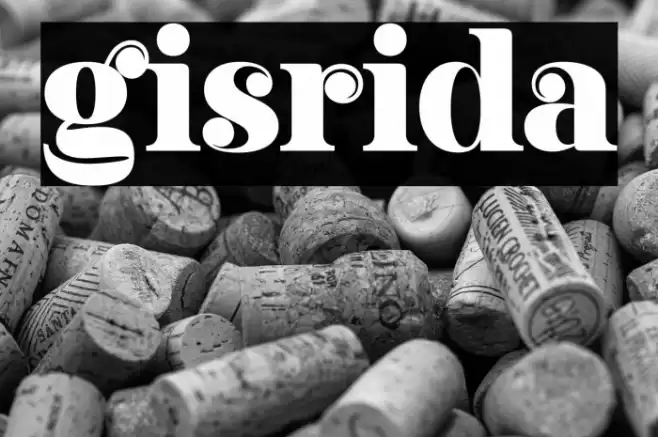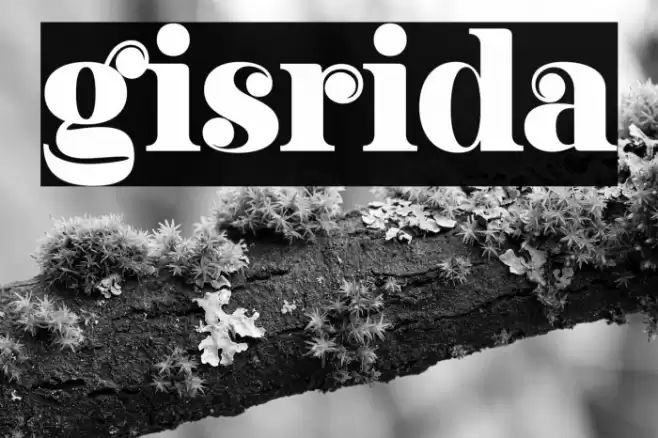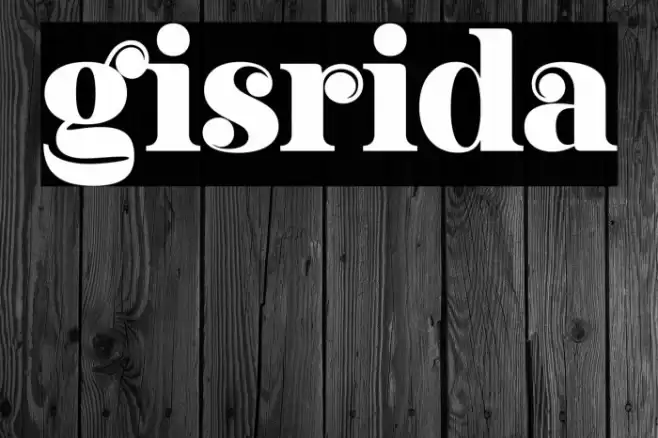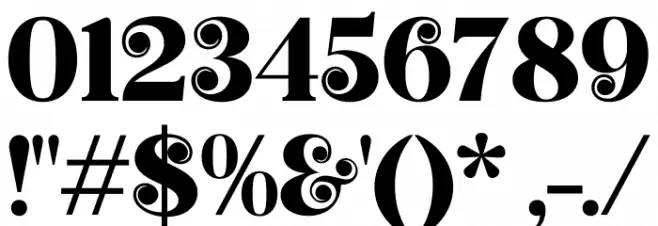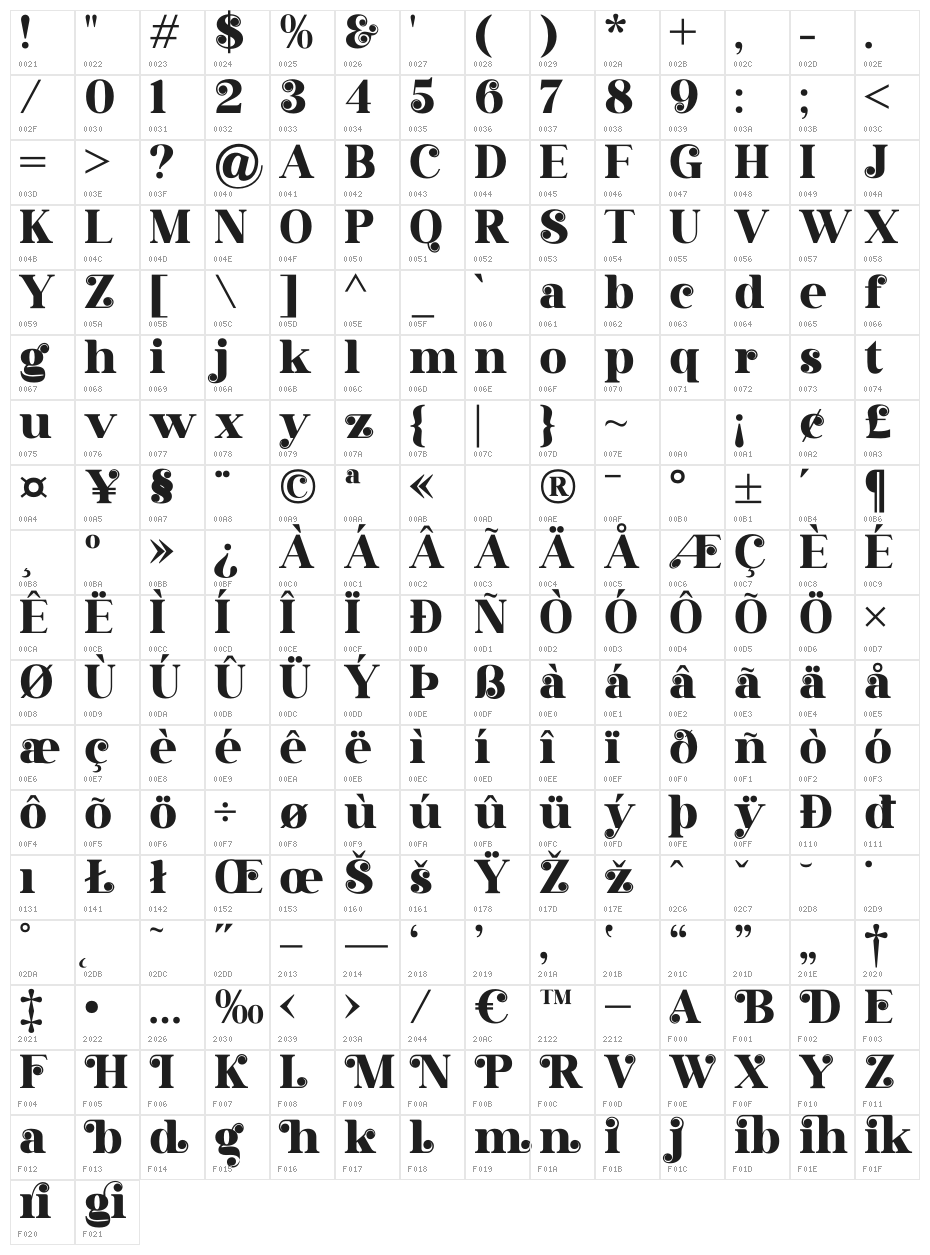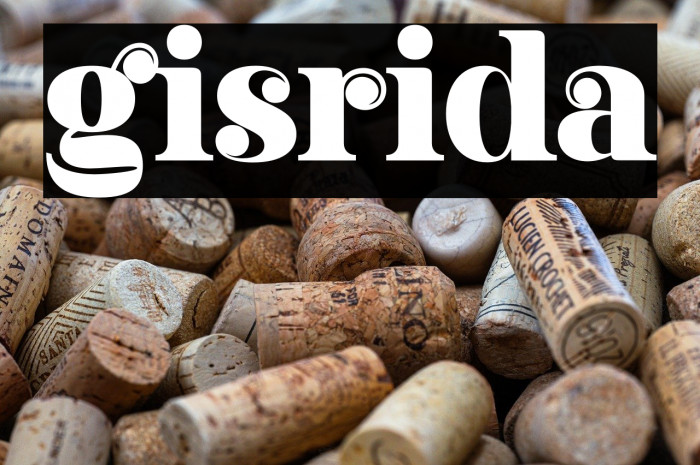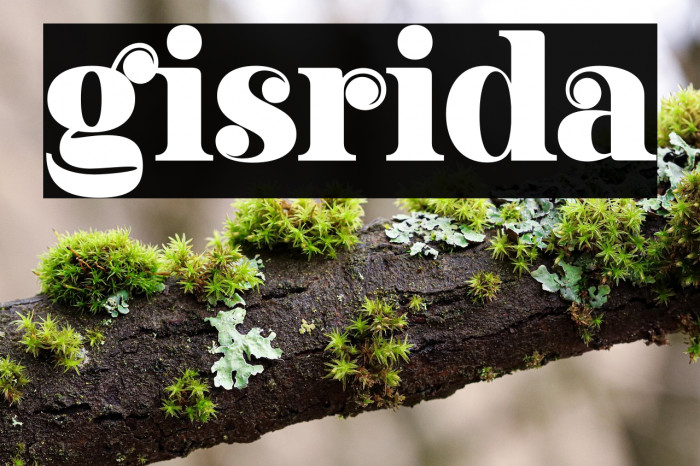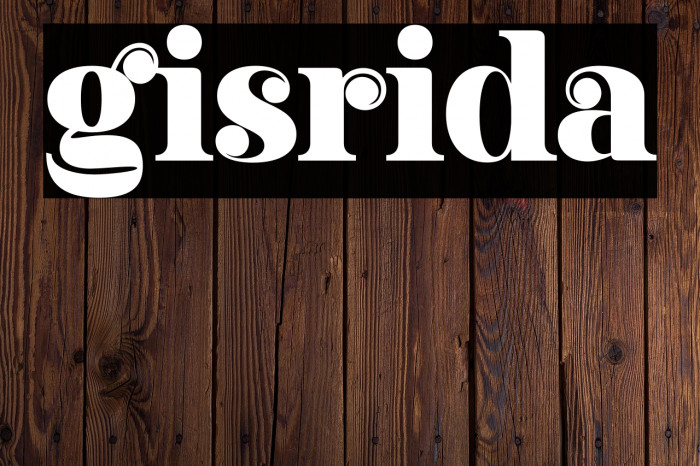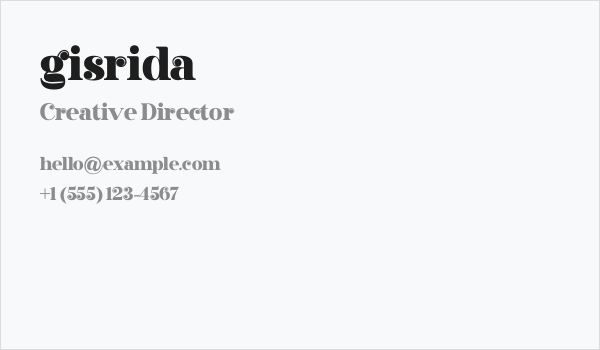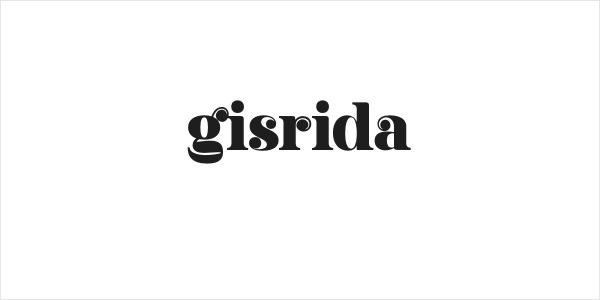
gisrida Font
gisrida Description
This font features a bold and decorative style with unique swirls and flourishes on certain characters, adding an elegant and artistic touch. The uppercase letters are particularly striking, with embellishments that make them stand out. The lowercase letters maintain a consistent style, offering a harmonious balance with the uppercase. The numerals are equally decorative, ensuring a cohesive look across all characters. This font is ideal for projects that require a touch of sophistication and flair, making it suitable for creative and artistic applications.
A bold, decorative font with elegant swirls and flourishes from Uncategorized fonts.
- Proposed Projects: Ideal for wedding invitations, luxury branding, artistic posters, and decorative headlines.
- Use Case: Headlines, Logos, Invitations